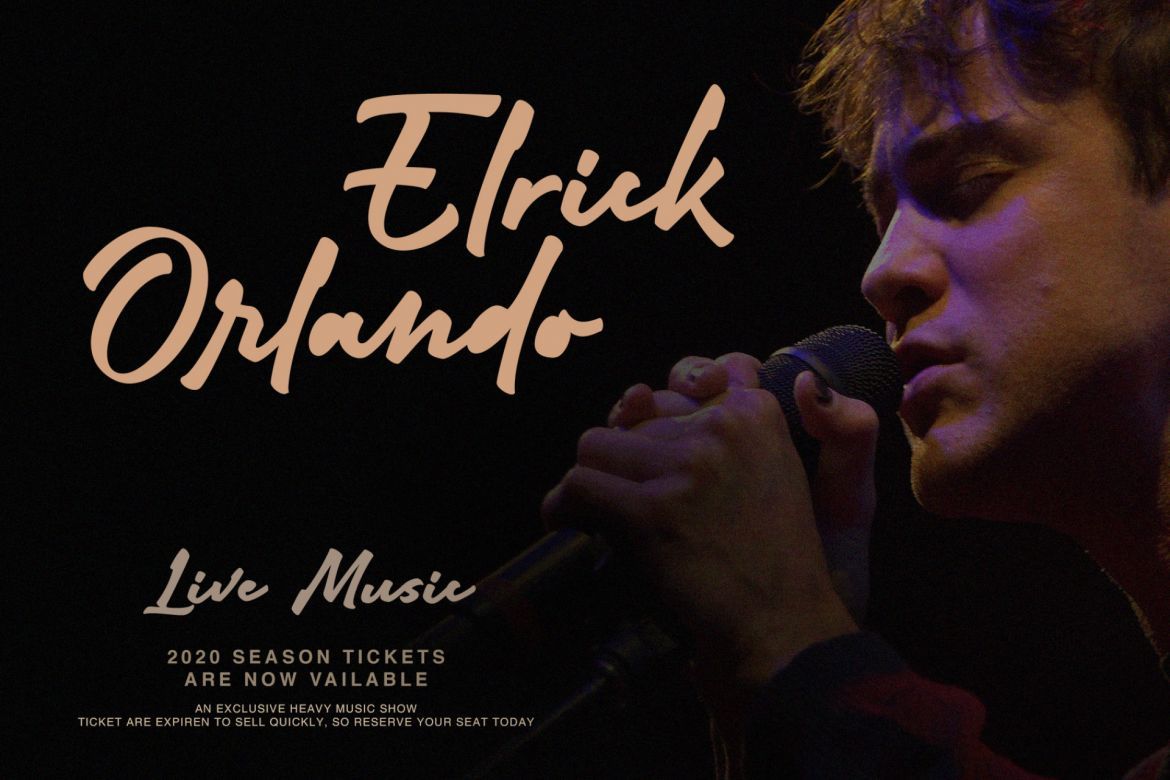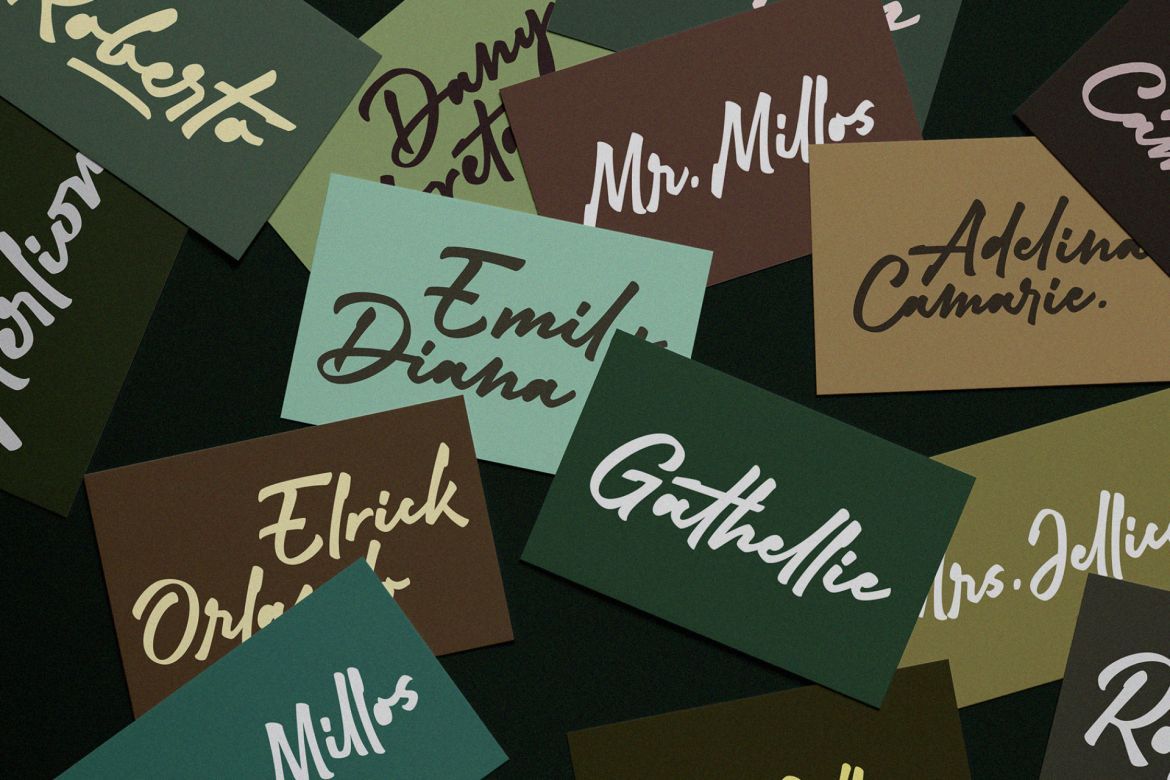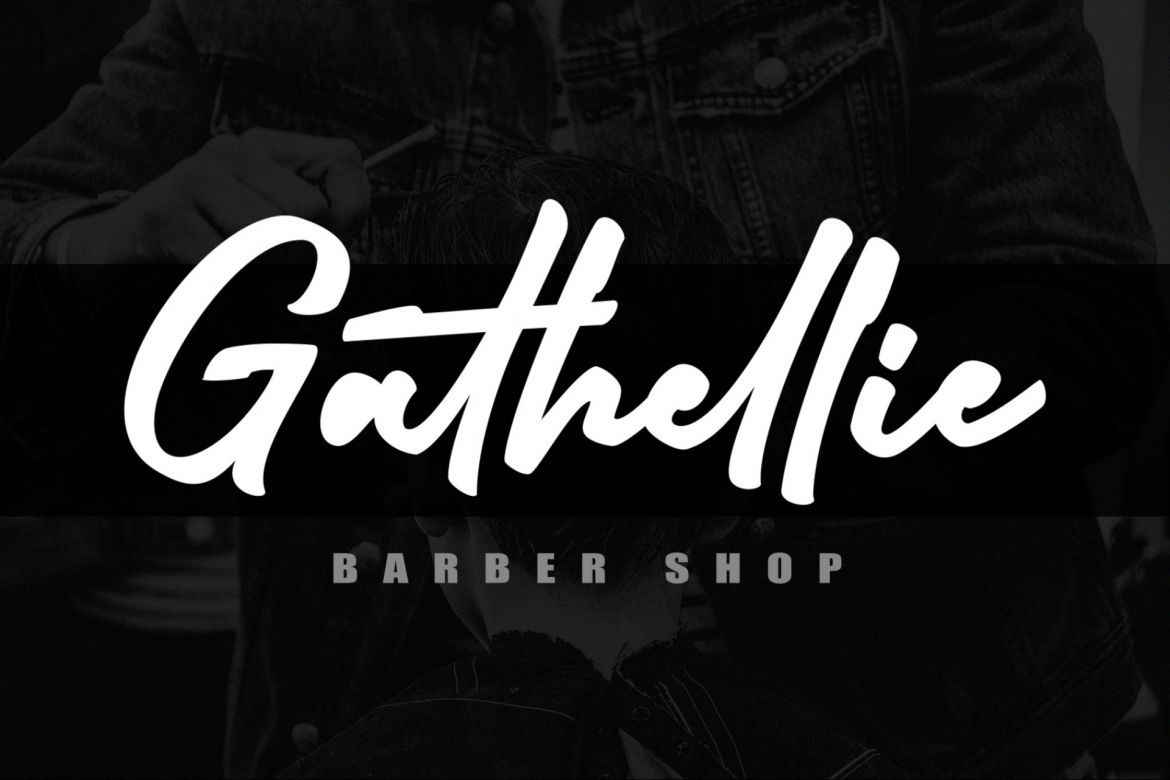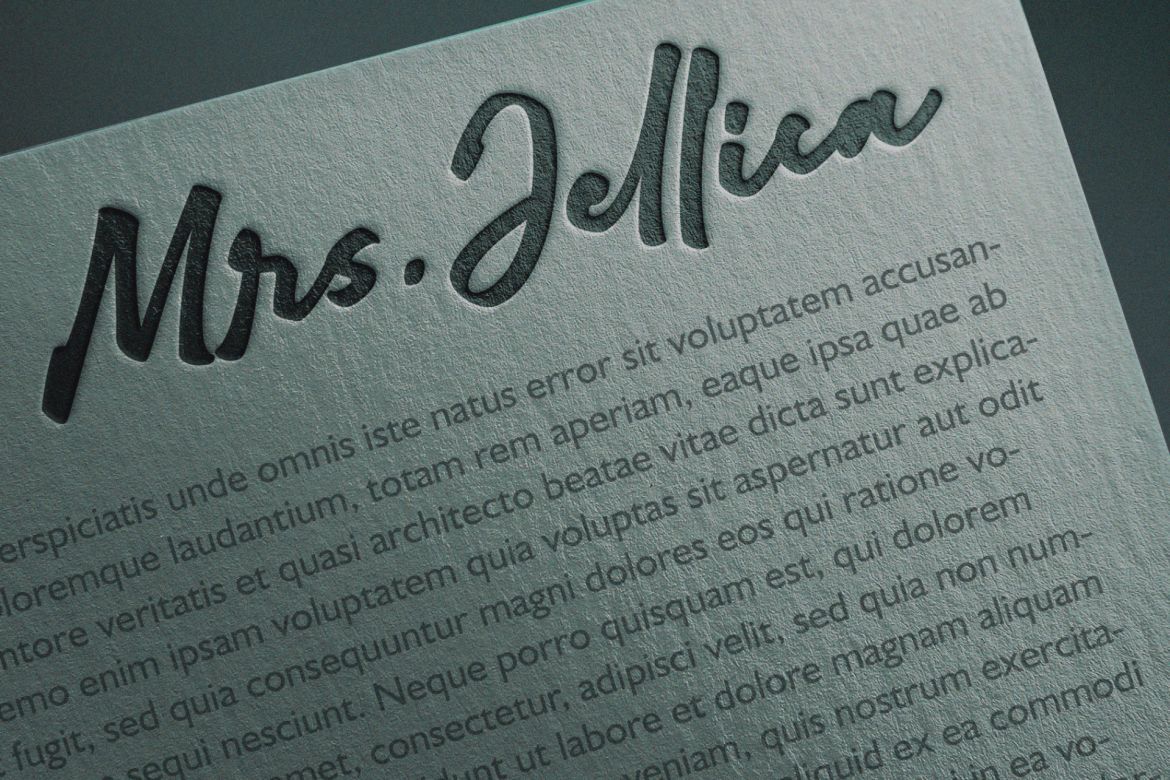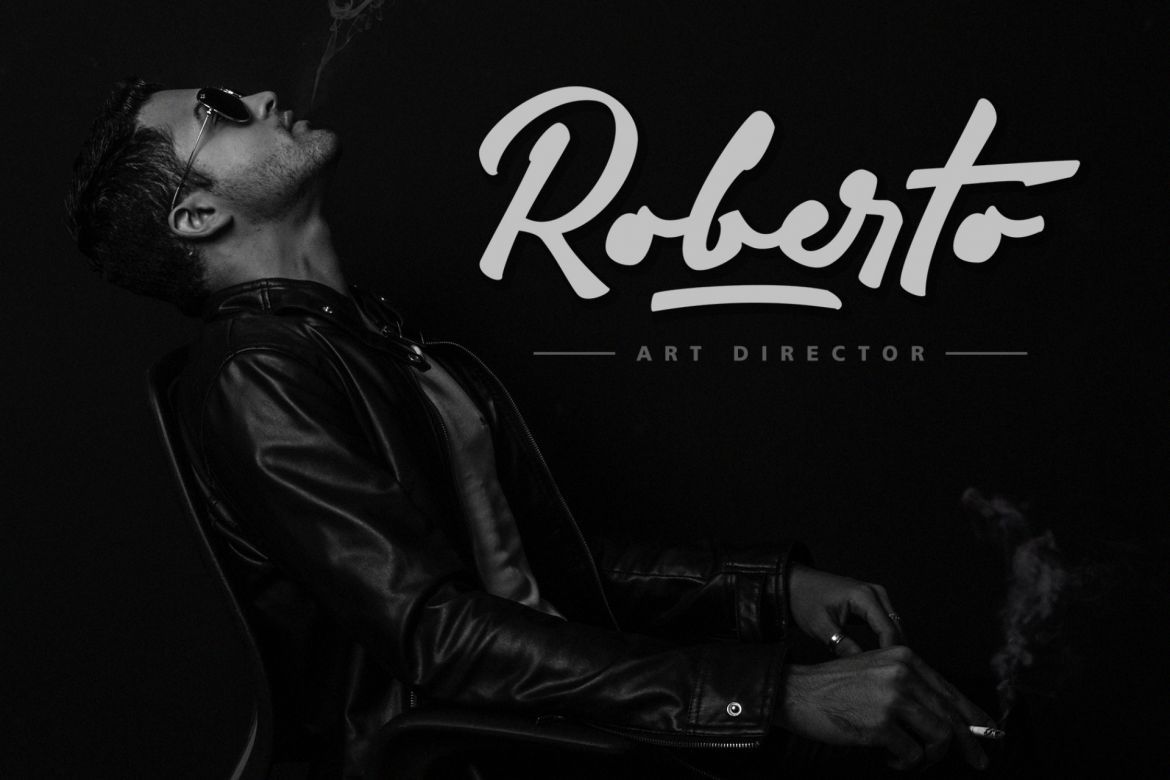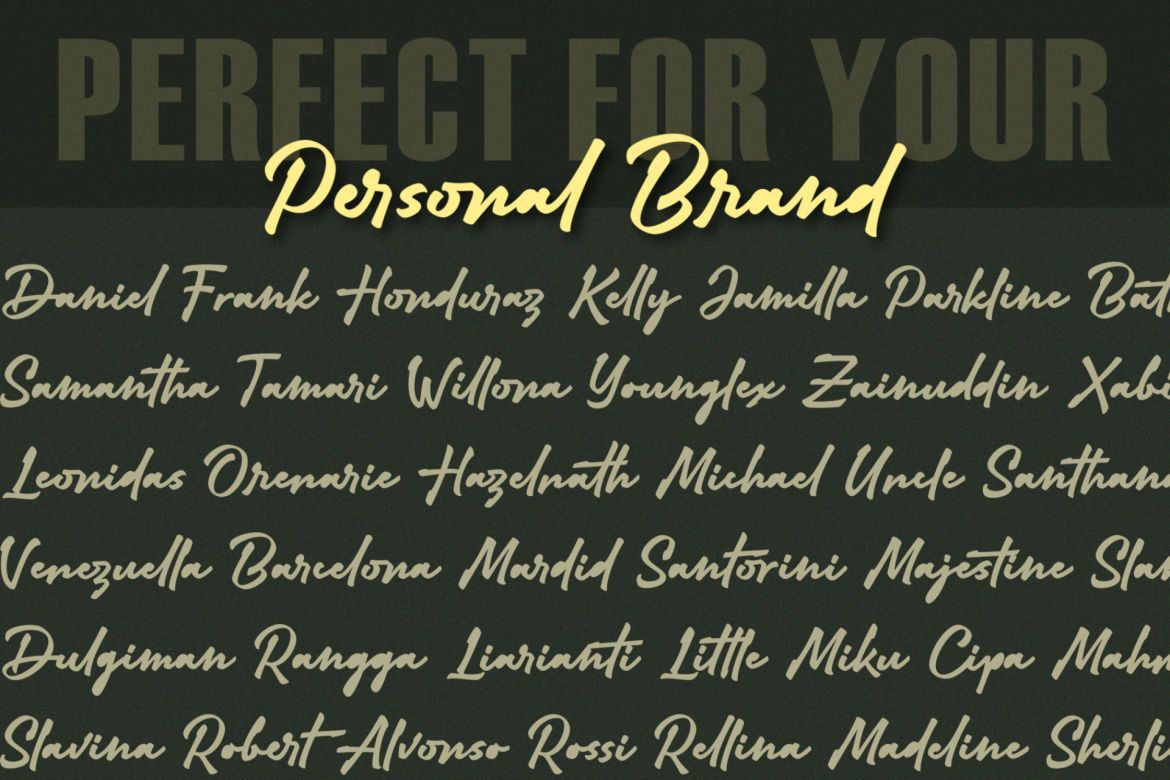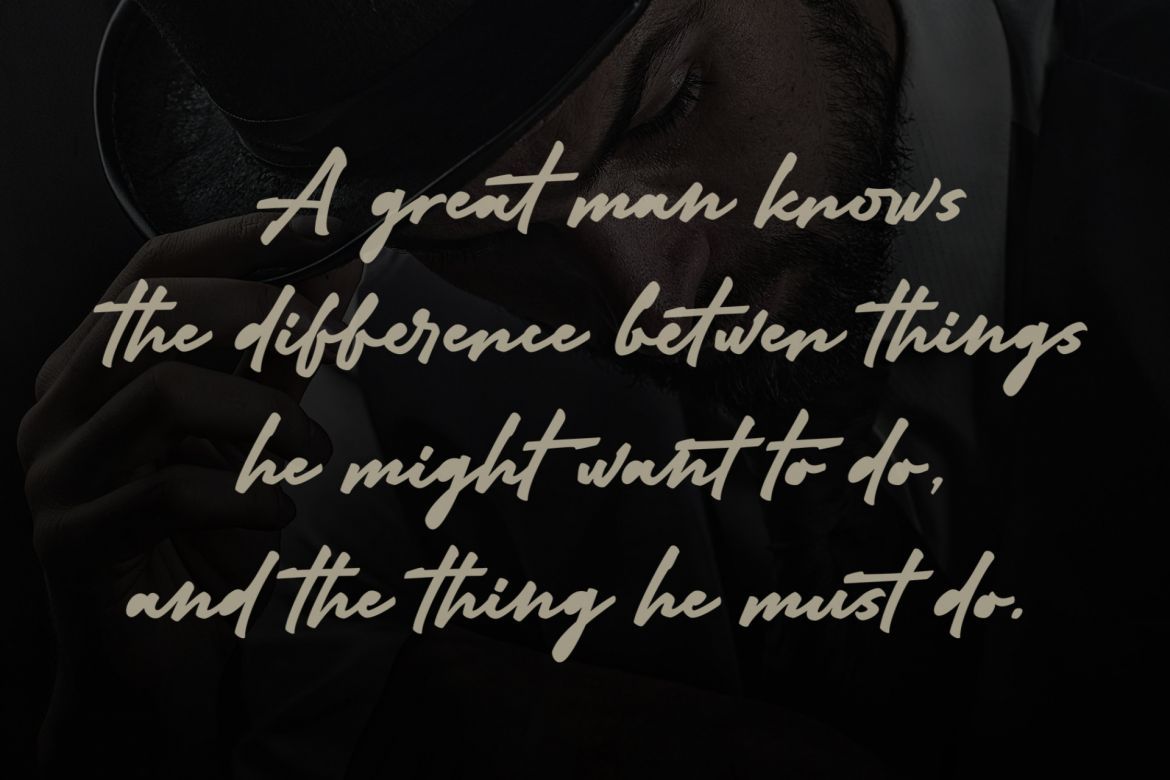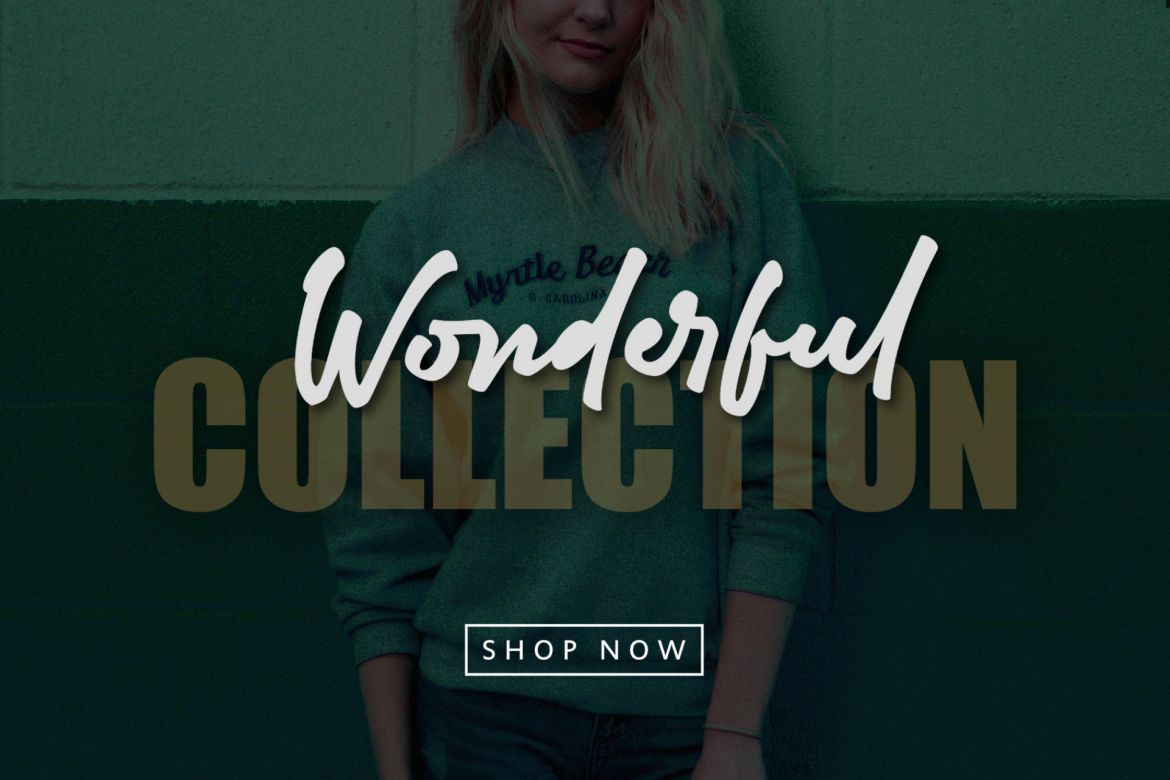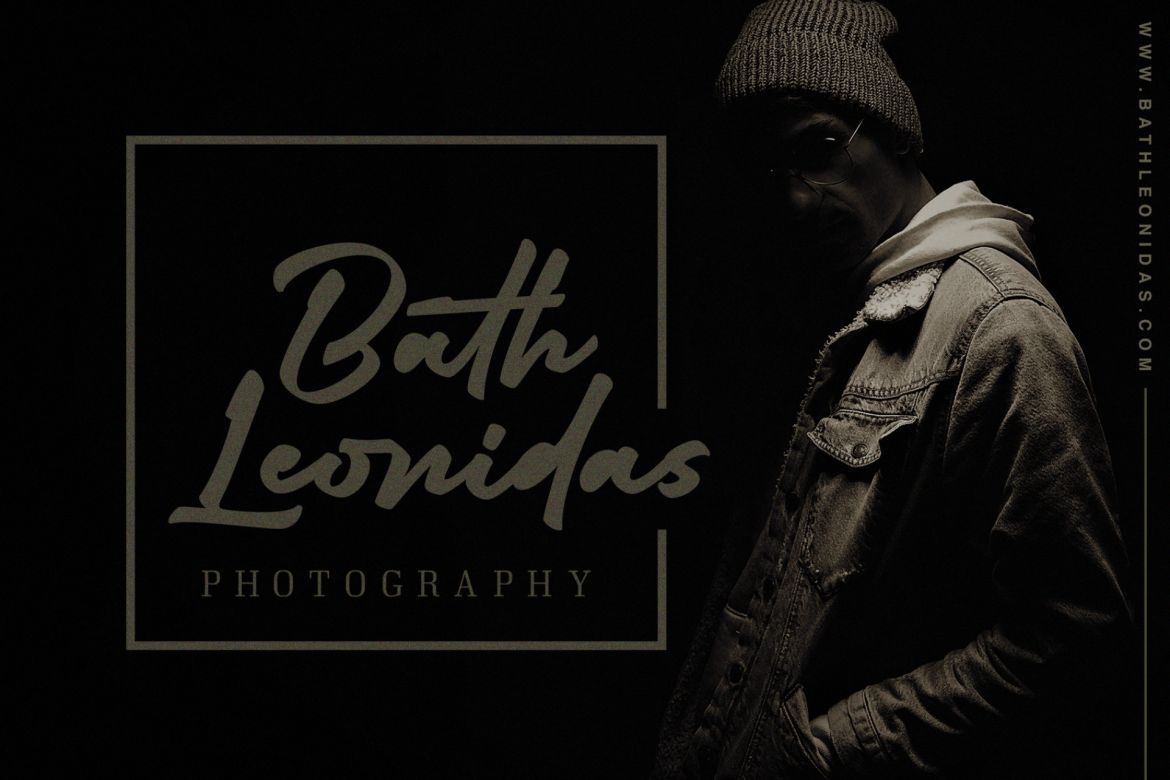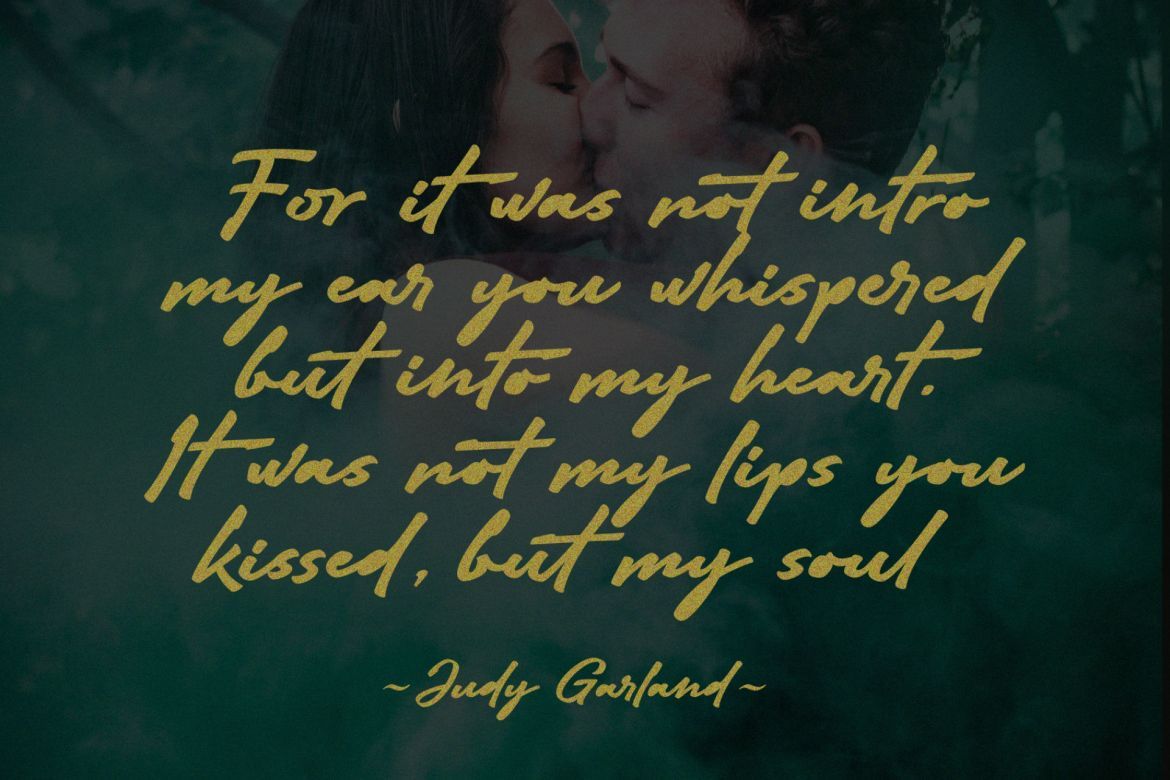
Adelina Camarie Bold Signature Font
'Adelina Camarie' is a Bold Signature Font script with a natural & stylish flow. This collection of scripts is perfect for personal branding. It was made with the intention to be used for your personal branding. But, this works well for many applications. Everything from personal branding, photography signature, advertising could benefit from this collection of this bold signature fonts.
These typefaces work well for many different aesthetics. They work well with something like 'cosmetics' for example but would also work well with Liquor Labels, Signage, & any type of signature-styled logo.
• signature stylish
• so much ligature and alternate